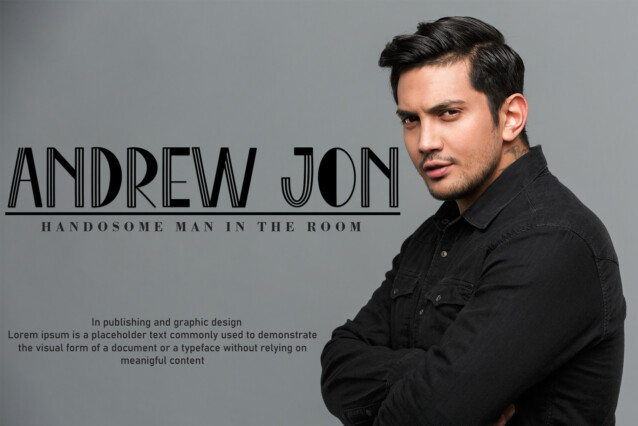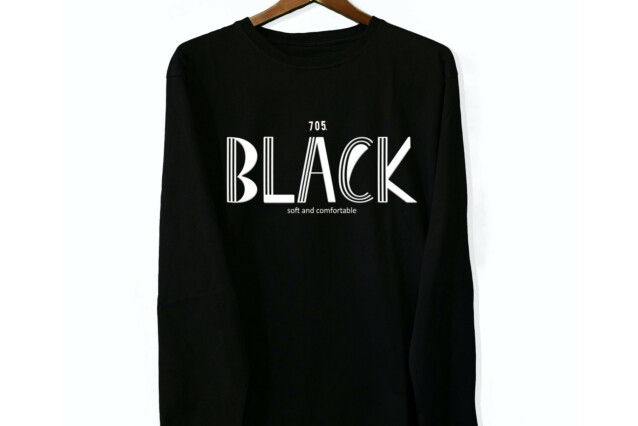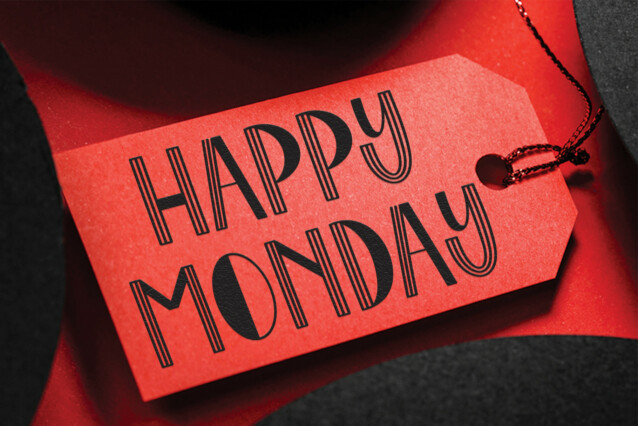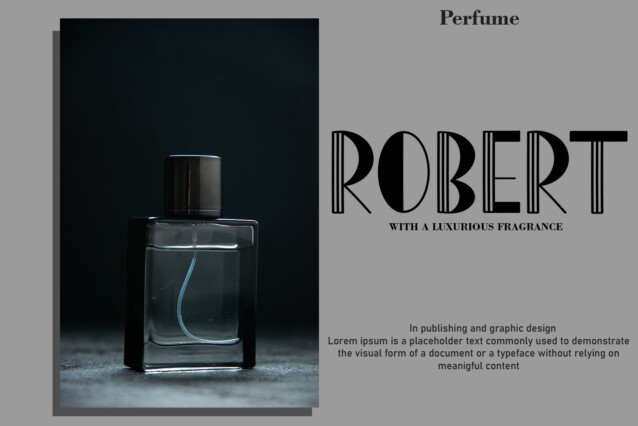
Black Monday Display Font
Black Monday Display Font is a sweet and friendly handwritten display font. Cute and fun, this font is ideal for writing wedding invitations, cards, or any other design that might need a playful touch!